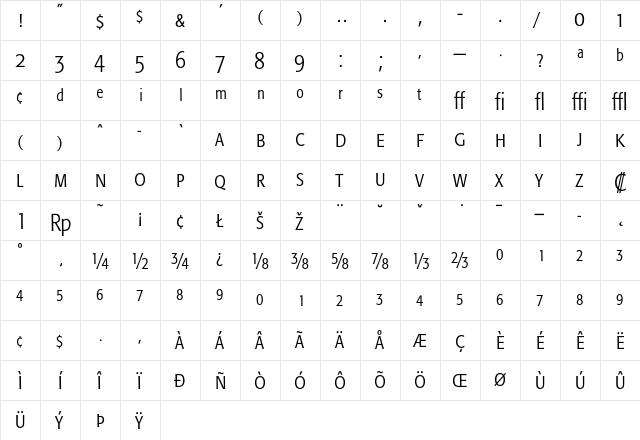
Formata Light Condensed Expert
Design Context for Formata Typeface
Formata is a composed and adaptable typeface that performs quietly and consistently across a wide range of design contexts. The delicate stroke weight brings airiness and refinement to layouts. Its narrow stance lets it pack a punch even in space-constrained designs.